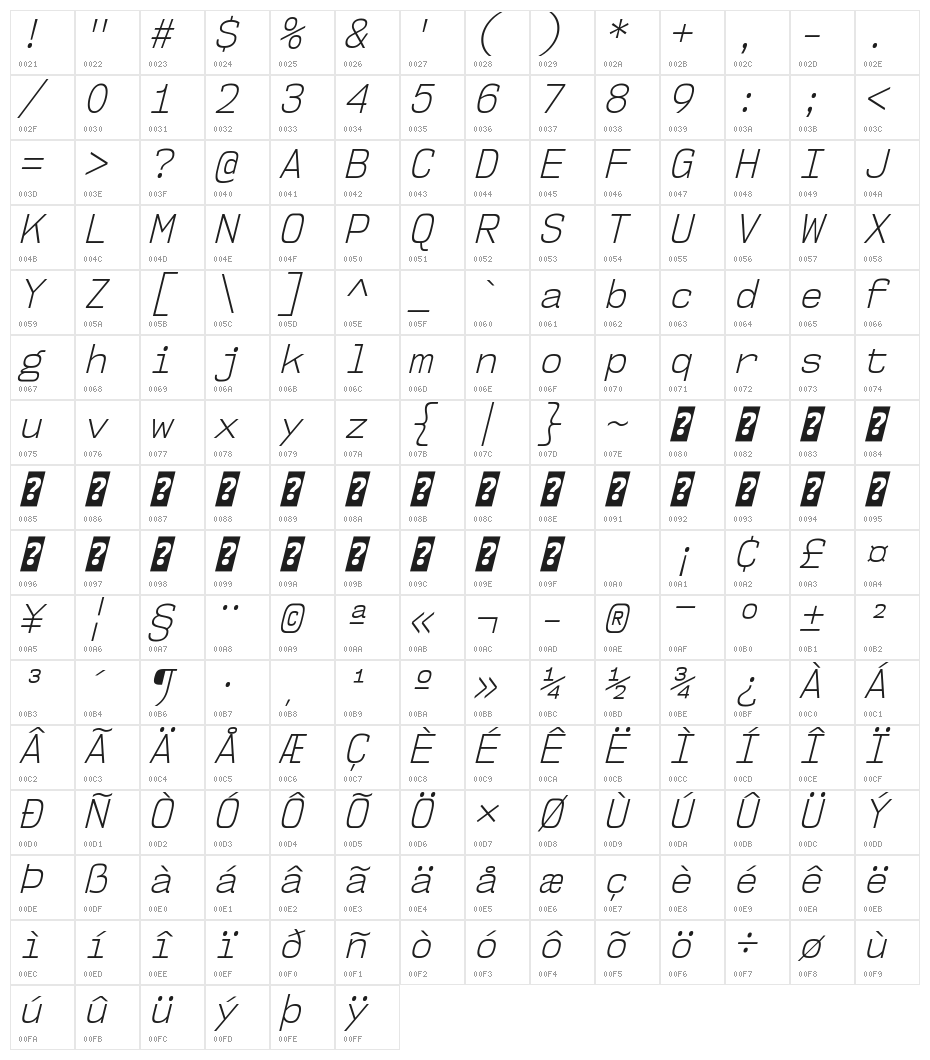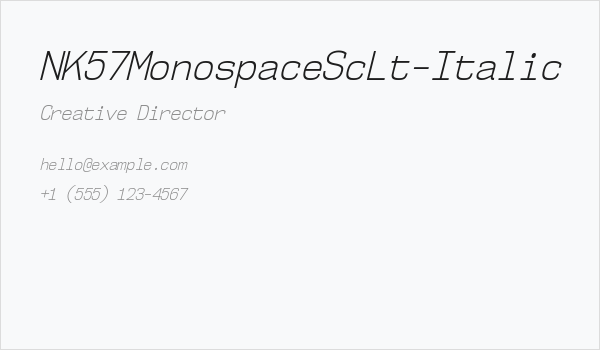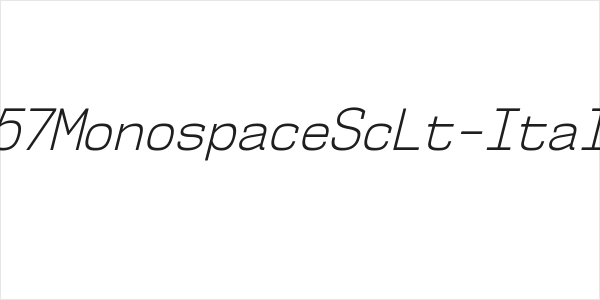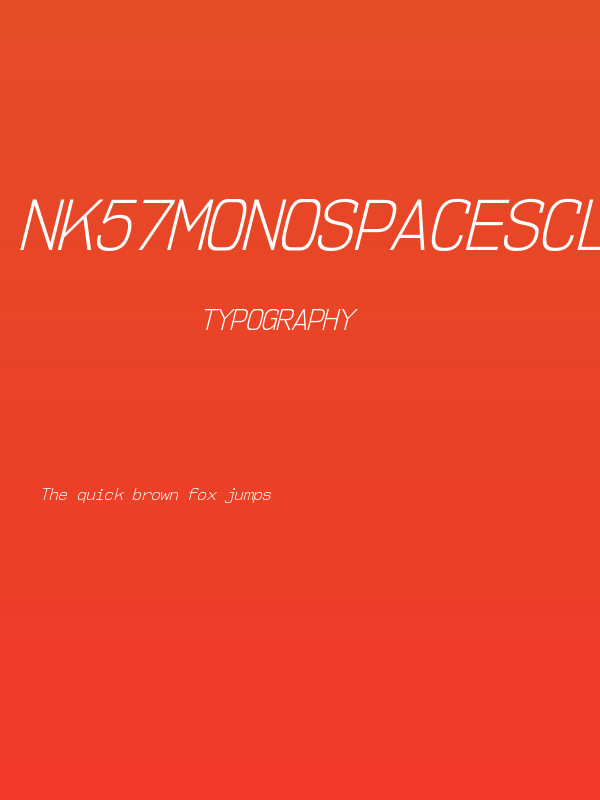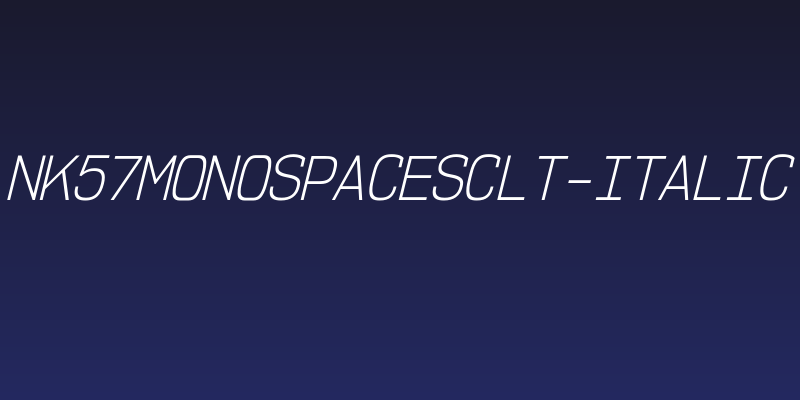
NK57MonospaceScLt-Italic Font
NK57MonospaceScLt-Italic Description
This font features a sleek, modern design with a monospaced structure, ensuring each character occupies the same amount of horizontal space. The italic style adds a dynamic, forward-leaning appearance, enhancing its contemporary feel. The strokes are light, contributing to a clean and airy aesthetic. The characters are well-defined with consistent line thickness, offering a uniform and balanced look. This font is particularly suitable for coding environments or any project requiring precise alignment of text. Its simplicity and clarity make it versatile for various design applications.
| Use Case | Coding, Technical documentation, Modern branding |
| Proposed Projects | Ideal for coding, technical documentation, modern branding, and minimalist design projects. |